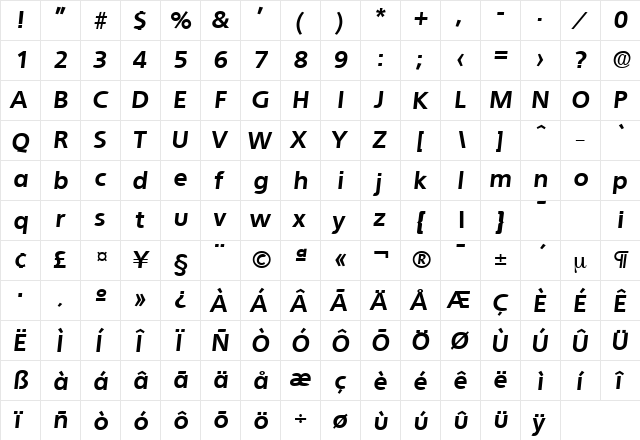
Quebec-Serial-ExtraBold RegularItalic
Design Context for Quebec-Serial-ExtraBold Typeface
Quebec-Serial-ExtraBold offers clean, dependable letterforms without strong stylistic allegiance, making it a practical choice for designers who need flexibility. The slanted form adds forward momentum and visual energy. The heavy weight commands attention and anchors typographic hierarchies.
Pro Tip: Use Quebec-Serial-ExtraBold for emphasis, pull quotes, and subheadings where its slanted energy can add rhythm to the layout.